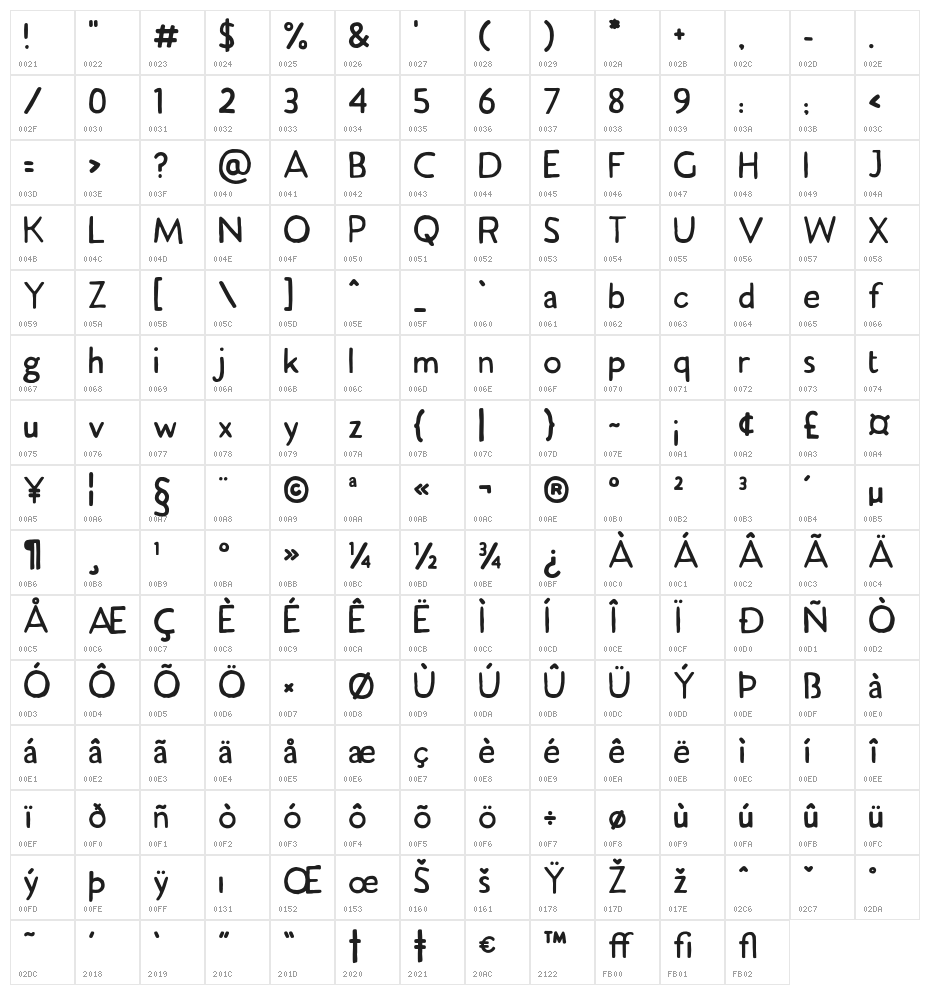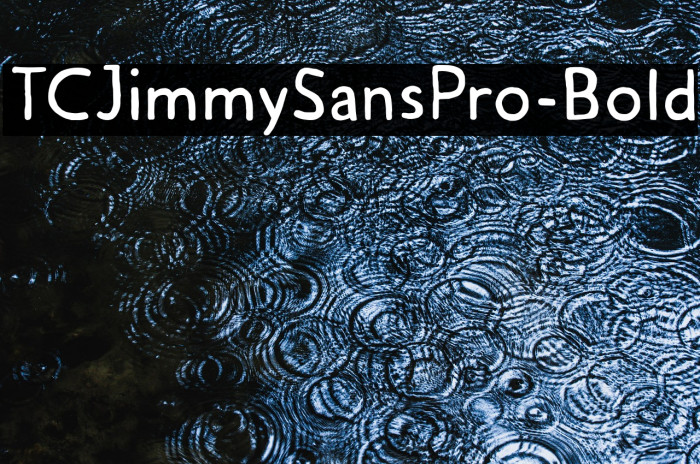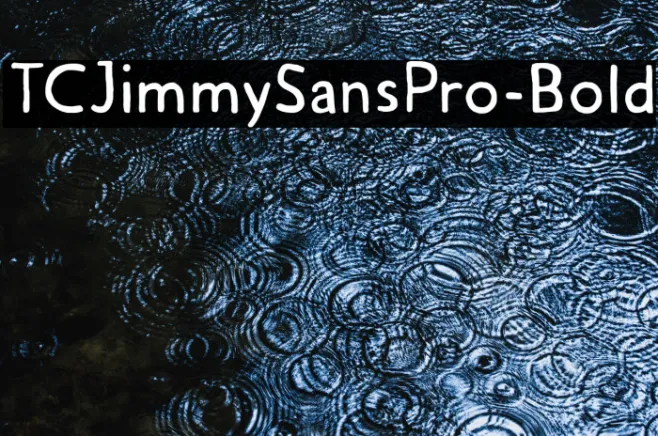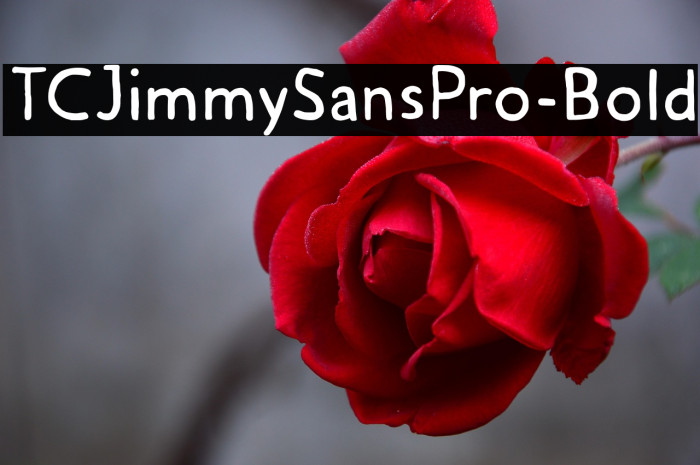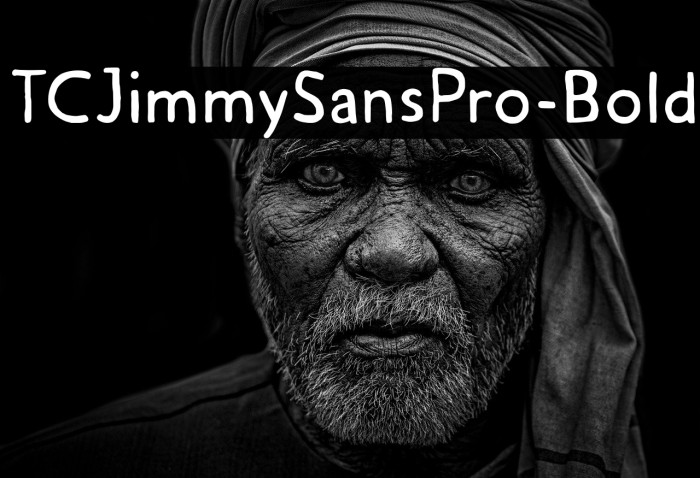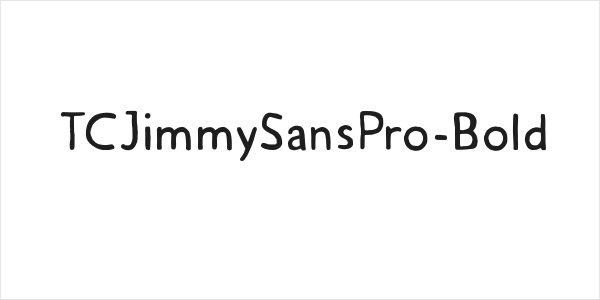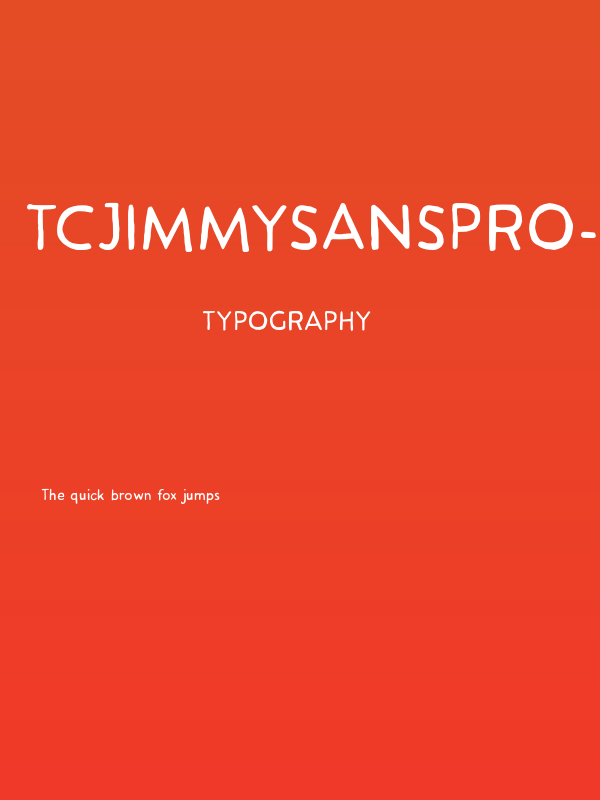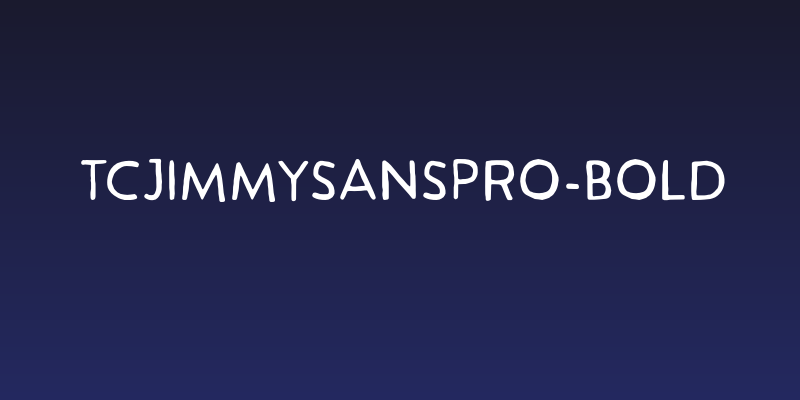
TCJimmySansPro-Bold Font
TCJimmySansPro-Bold Description
This font features a playful and informal style with rounded edges and a hand-drawn appearance. The characters are bold and slightly irregular, giving them a casual and approachable feel. The uppercase and lowercase letters maintain a consistent width, while the numerals and special characters complement the overall design. The font's unique charm lies in its imperfect lines and organic shapes, making it ideal for projects that require a personal touch. Its readability is enhanced by the generous spacing between characters, ensuring clarity even at smaller sizes.
| Proposed Projects | Ideal for children's books, greeting cards, casual branding, and playful posters. |